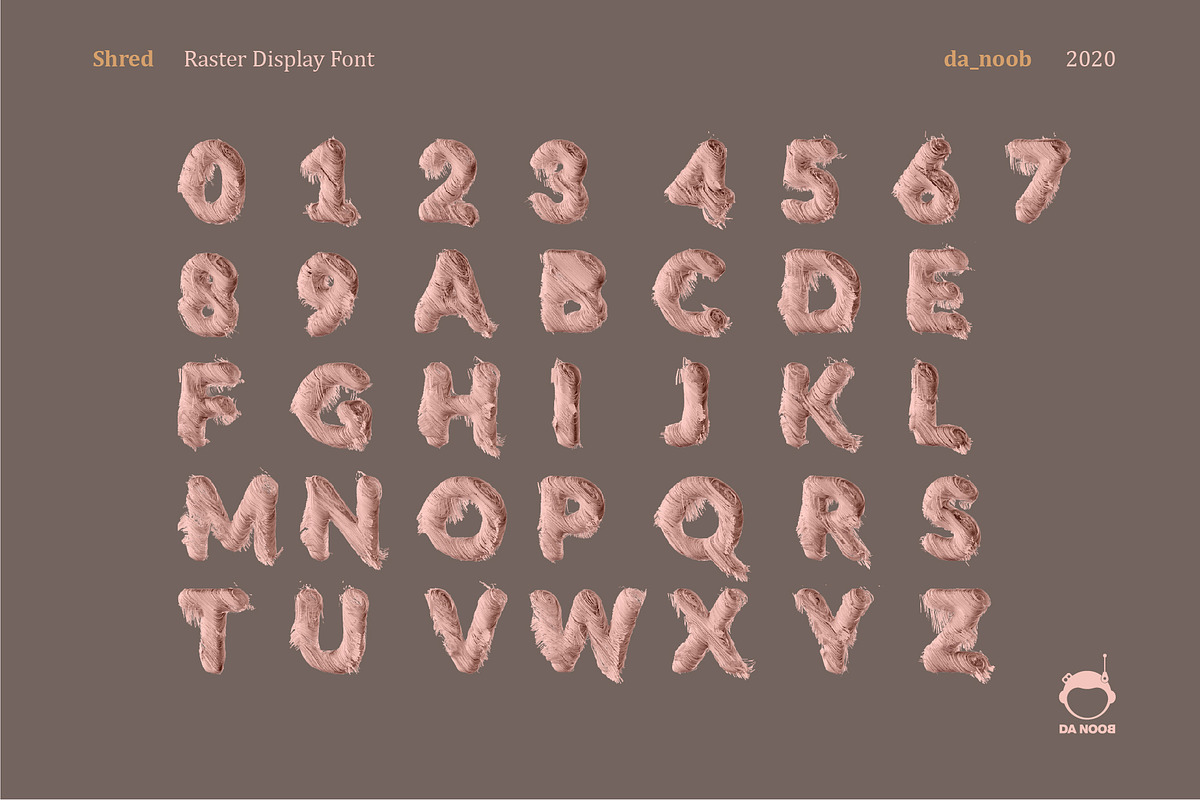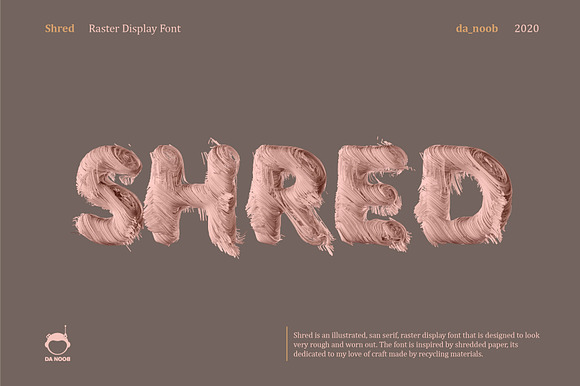
Shred - Raster display font
Shred is an illustrated, San serif, raster display font that is designed to look very rough and crafty. The font is inspired by shredded paper, its dedicated to my love of craft made of recycled materials.
Thought the font has distinct use cases depending on the creator, it can be best used for headings, short words and illustrative typographic projects.
PLEASE NOTE that this is a display font.
1. The font does not contain special characters and small alphabets.